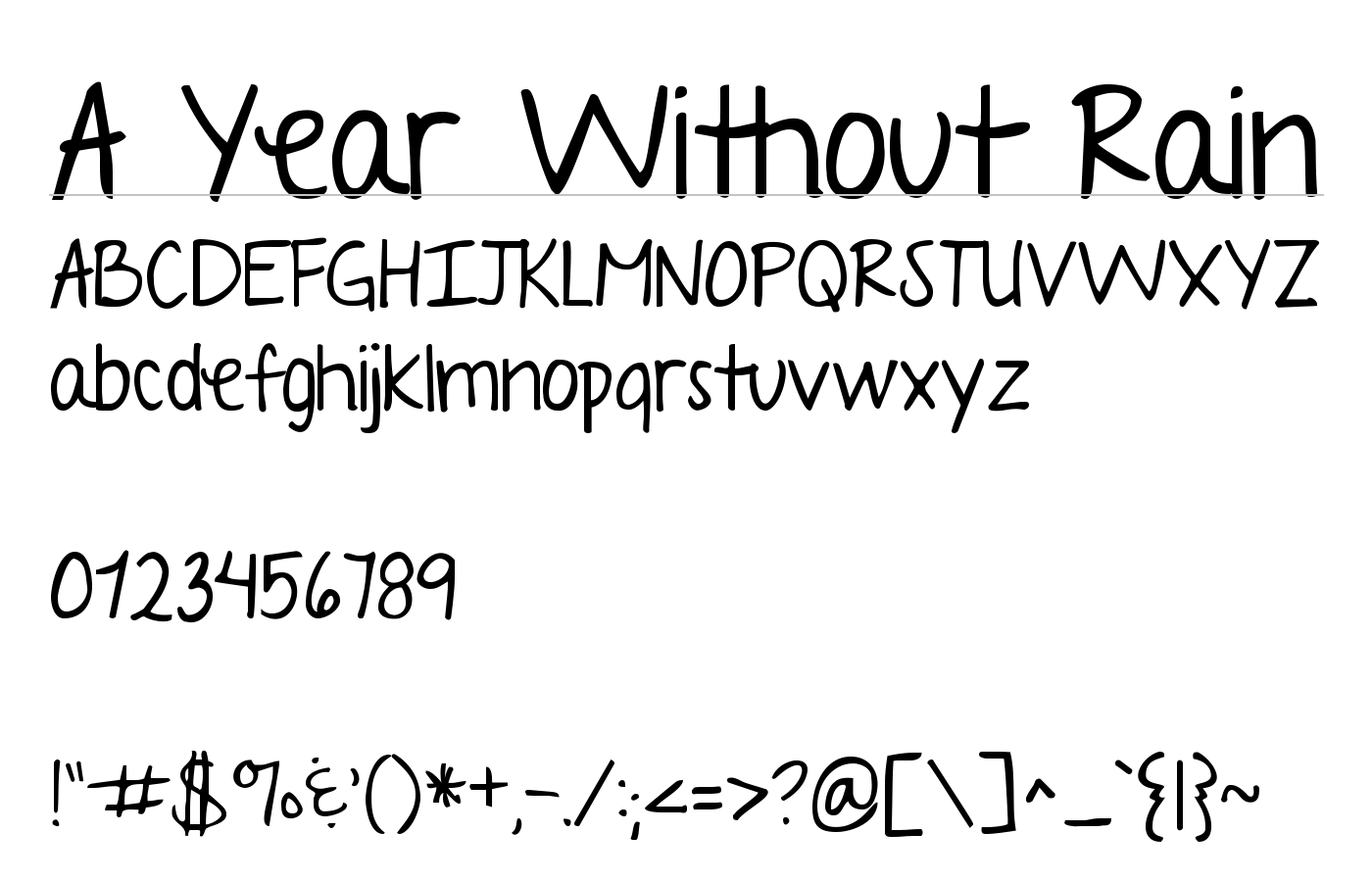
A Year Without Rain is a playful, handwritten sans serif font with a casual and friendly vibe. Its light weight and slightly uneven, informal strokes give it a warm, approachable feel, making it ideal for creative projects, children’s materials, and relaxed branding that seeks authenticity and charm. This font works well for headlines, invitations, and personal designs where a natural, human touch is desired.
A Year Without Rain Font